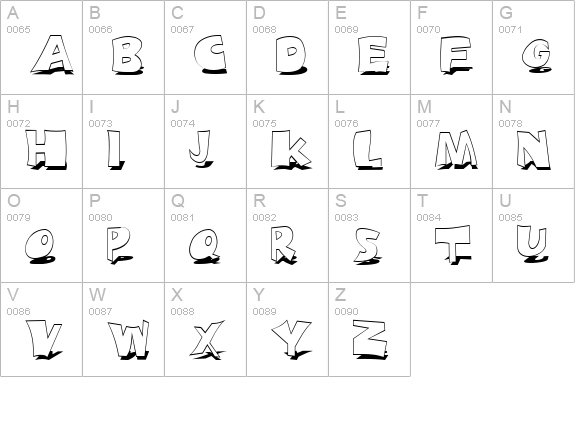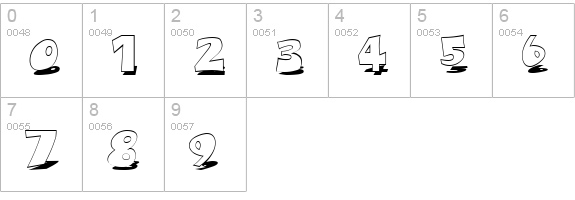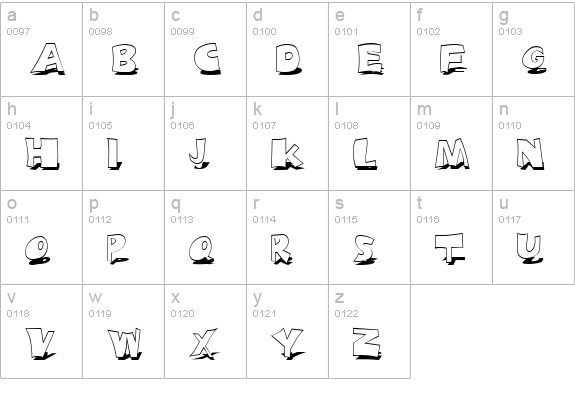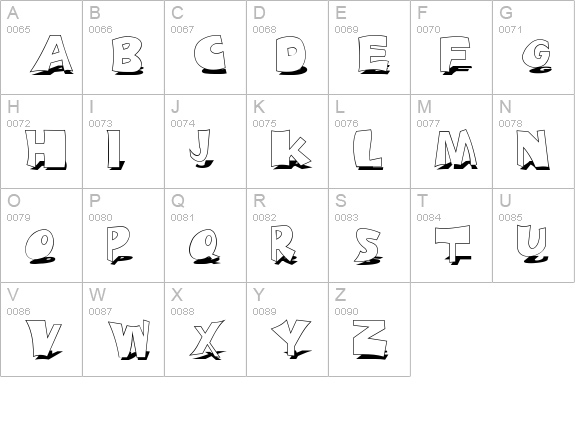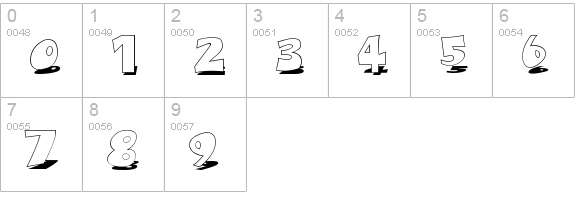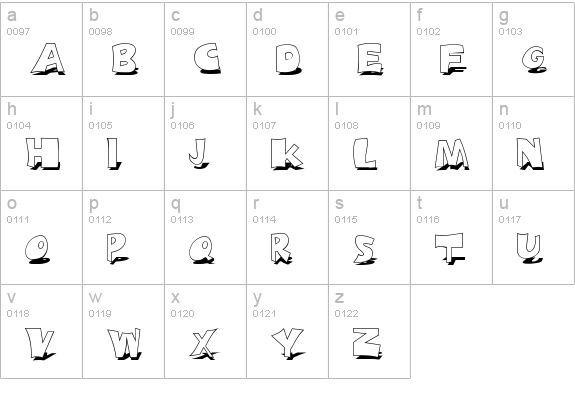
HattrickShadow font is a unique and stylish typeface that adds a touch of sophistication to any design. Its bold and eye-catching shadow effect gives your text a three-dimensional appearance, making it stand out in any project. This versatile font is perfect for headlines, logos, posters, and more. What sets HattrickShadow font apart is not only its striking design but also the fact that it is available for free download at FontsMarket.com. This means you can easily access this premium font without breaking the bank. So go ahead and elevate your designs with HattrickShadow font today!